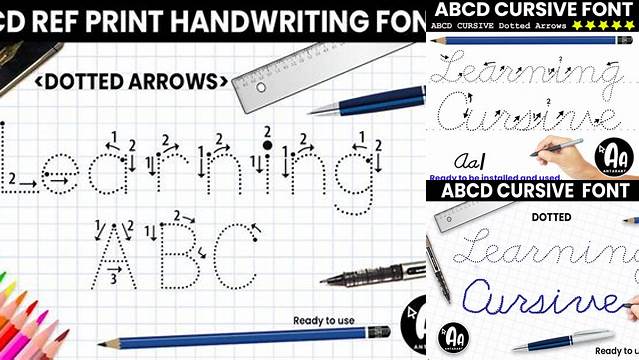
Let's dive into the world of fonts, guys! Today, we're talking about something super specific and cool: the abc cursive arrow dotted font. Finding the right font can seriously elevate your design game, whether you're working on invitations, logos, or just trying to make your social media posts pop. So, if you're on the hunt for this particular style and want to snag it for free, you've come to the right place. Let’s break down everything you need to know, from what makes this font unique to where you can download it without spending a dime. Trust me; by the end of this article, you'll be a pro at finding and using this awesome font!
What is ABC Cursive Arrow Dotted Font?
Okay, so first things first, what exactly is the abc cursive arrow dotted font? Well, it's a font characterized by its cursive script, often resembling handwriting, combined with unique dotted elements and arrow-like features. Imagine elegant, flowing letters with a playful twist – that’s pretty much it. This font style is perfect for projects where you want to convey a sense of creativity, whimsy, or even a touch of vintage charm. Think birthday invitations, custom greeting cards, or even adding a special touch to your blog headers. The combination of cursive, dots, and arrows gives it a distinct personality that sets it apart from more traditional fonts. Using this font can instantly make your designs feel more personalized and approachable, which is always a win in the design world. Plus, it’s just plain fun to work with, adding a bit of flair to anything you create. The abc cursive arrow dotted font is all about blending elegance with a playful edge, making it a versatile choice for various design projects. It’s the kind of font that catches the eye and leaves a lasting impression, making your work stand out from the crowd.
Why Use a Cursive Arrow Dotted Font?
So, why should you even bother using a cursive arrow dotted font in the first place? Great question! This font style brings a unique blend of elegance and playfulness to any project. Picture this: you're designing an invitation for a whimsical garden party. A standard, blocky font just won't cut it, right? But a cursive arrow dotted font? It's perfect! It adds a touch of sophistication with the cursive elements, while the dots and arrows inject a fun, quirky vibe. This makes it ideal for projects that need to be both stylish and approachable.
Beyond aesthetics, using such a distinctive font can also help your brand or design stand out. In a sea of generic fonts, the cursive arrow dotted font grabs attention and makes a statement. It’s excellent for logos, branding materials, and social media graphics where you want to leave a memorable impression. Plus, let's be honest, it’s just plain fun to use! Experimenting with different fonts can spark creativity and give your projects that extra oomph they need. Whether you're a professional designer or just dabbling in DIY projects, incorporating a cursive arrow dotted font can add a special touch that elevates your work to the next level. It’s all about making your designs unique and engaging, and this font is a fantastic way to achieve that.
Tips for Designing with Cursive Fonts
Designing with cursive fonts, like our abc cursive arrow dotted font, can be a blast, but it also comes with its own set of challenges. Here are some tips to help you make the most of this font style. First, readability is key. Cursive fonts can sometimes be harder to read than standard fonts, so make sure your text is clear and legible. Avoid using cursive fonts for large blocks of text; instead, reserve them for headings, titles, or short phrases. Contrast is also important. Choose colors that stand out against the background to make your text pop. Dark cursive fonts on a light background or vice versa usually work well. Experiment with different font sizes to find the sweet spot where your text is both readable and visually appealing.
Don't be afraid to mix and match fonts. Pairing a cursive font with a simple, sans-serif font can create a balanced and stylish look. Just make sure the fonts complement each other and don't clash. Finally, pay attention to the overall design. Make sure your font choice fits the mood and style of your project. A cursive arrow dotted font might be perfect for a whimsical invitation but not so much for a serious business report. With these tips in mind, you'll be able to create stunning designs with your cursive font.
Alright, let's talk about some common mistakes people make when using fonts, especially cursive ones like our abc cursive arrow dotted font. Avoiding these pitfalls can save you from design disasters and keep your projects looking polished. One of the biggest mistakes is overusing the font. Just because you love a particular font doesn't mean you should use it everywhere! Too much of a good thing can be overwhelming and make your design look cluttered. Stick to using your cursive arrow dotted font sparingly, perhaps for headings or accents, and balance it with simpler fonts for the body text. Another common mistake is ignoring readability. Cursive fonts can sometimes be difficult to read, especially at small sizes or when used in long paragraphs. Always prioritize readability over aesthetics. Make sure your text is clear and legible, even at a glance. Also, watch out for poor color choices. Using a font color that's too similar to the background can make your text disappear. Choose colors that provide enough contrast to make your text stand out.
Finally, don't forget to check your spelling and grammar! A beautiful font won't save you from typos and grammatical errors. Proofread your text carefully before finalizing your design. By avoiding these common mistakes, you'll be well on your way to creating professional-looking designs with your abc cursive arrow dotted font.
Pairing the Font with Other Styles
One of the coolest things about using fonts like the abc cursive arrow dotted font is how you can pair them with other styles to create unique and eye-catching designs. But let's be real, font pairing can feel like a daunting task. Don't worry, I've got your back! The key to successful font pairing is finding fonts that complement each other without clashing. Since the cursive arrow dotted font is already pretty decorative, it's best to pair it with a simpler, more neutral font. Think sans-serif fonts like Helvetica, Arial, or Open Sans. These fonts provide a clean and modern contrast to the cursive script, making your design look balanced and professional.
Another great option is to pair your cursive font with a serif font like Times New Roman or Georgia. Serif fonts have small decorative strokes at the end of each letter, which can add a touch of elegance and sophistication to your design. Just be careful not to choose a serif font that's too ornate, as it could compete with the cursive font and make your design look cluttered. When pairing fonts, pay attention to the font weight and size. Use different weights and sizes to create visual hierarchy and guide the viewer's eye through your design. For example, you could use the cursive arrow dotted font for a large heading and a smaller sans-serif font for the body text. With a little experimentation, you'll find the perfect font pairing for your project.
Inspiration: Designs Using Similar Fonts
Need a little spark of inspiration for how to use your abc cursive arrow dotted font? Let's take a peek at some designs that rock similar styles. Think about greeting cards with a personal touch – that's a perfect place for this kind of font to shine. Envision a birthday card with a fun, handwritten-style message in a dotted cursive font, paired with colorful illustrations. It's cheerful and inviting, right? Another great example is wedding invitations. Imagine the names of the happy couple elegantly displayed in a cursive font with delicate arrow details, setting a romantic and whimsical tone for the event. For branding, small businesses often use these fonts to create a friendly and approachable vibe.
Picture a bakery logo with a cursive arrow dotted font spelling out the name, maybe with a cute illustration of a cupcake or a rolling pin. It's memorable and conveys a sense of homemade goodness. Social media graphics are another fantastic canvas for these fonts. Think about eye-catching quotes or announcements with a playful cursive font, making your posts stand out in the endless scroll. Looking at these examples, you can see how versatile the abc cursive arrow dotted font can be. It's all about finding the right context and pairing it with complementary elements to create a design that truly shines. So go ahead, get inspired, and let your creativity flow!
Creating Logos with the Font
Let's talk logos, guys! Can you create a killer logo using the abc cursive arrow dotted font? Absolutely! But there are some things to keep in mind to make sure your logo is on point. First off, simplicity is key. Even though this font is eye-catching, you don't want your logo to be too cluttered. Think about using just a few letters or a short word in the font to represent your brand. This keeps it clean and memorable. Color is your friend! Play around with different color combinations to see what works best for your brand. A bold color can make the cursive font pop, while a more subtle color can create a sophisticated look. Consider adding a simple graphic or icon to complement the font. This could be anything from a small arrow or dot to a more complex illustration that represents your brand's values or products.
Make sure your logo is scalable. It should look just as good on a business card as it does on a billboard. Test it out at different sizes to make sure it remains legible and visually appealing. Get feedback! Show your logo to friends, colleagues, or potential customers and ask for their opinions. This can help you identify any areas that need improvement before you finalize your design. Creating a logo with the abc cursive arrow dotted font can be a fun and creative process. Just remember to keep it simple, scalable, and representative of your brand.
Using the Font in Social Media Graphics
If you're looking to make your social media graphics pop, the abc cursive arrow dotted font could be your new best friend! Social media is all about grabbing attention, and this font definitely has that wow factor. Think about using it for eye-catching quotes that you post on Instagram or Facebook. A well-designed quote with a playful cursive font can be super shareable and help you reach a wider audience. Create stunning headers for your social media profiles. A unique header with your brand name or a catchy slogan in the cursive arrow dotted font can make a lasting impression on visitors. Design engaging graphics for your stories. Use the font to highlight key information or add a fun, personal touch to your updates.
Run contests and promotions with eye-catching visuals. The abc cursive arrow dotted font can help you create graphics that stand out and encourage people to participate. Remember to keep your graphics consistent with your brand's overall aesthetic. Use the same colors, fonts, and style across all your social media platforms to create a cohesive and professional look. By incorporating the abc cursive arrow dotted font into your social media graphics, you can create visuals that are both engaging and memorable. So go ahead, experiment, and have fun!
Creating Invitations with the Font
Creating invitations is where the abc cursive arrow dotted font truly shines! Whether it's a birthday bash, a wedding, or just a fun get-together, this font can add a special touch that sets the tone for your event. Imagine designing birthday invitations with the birthday person's name elegantly written in the cursive font, surrounded by colorful dots and arrows. It's playful and festive, perfect for celebrating another year. For wedding invitations, consider using the font to highlight the names of the bride and groom or to write a romantic quote. Pair it with elegant paper and delicate floral designs to create a truly memorable invitation.
If you're hosting a casual get-together, use the font to create fun and inviting invitations that reflect the laid-back atmosphere of your event. Add some playful illustrations or quirky details to make your invitations even more unique. Remember to include all the important details, such as the date, time, location, and RSVP information. Make sure the text is clear and easy to read, even with the cursive font. Consider adding a personal touch, such as a handwritten note or a custom illustration, to make your invitations even more special. Creating invitations with the abc cursive arrow dotted font is a great way to add a personal and creative touch to your event. So go ahead, get creative, and let your invitations reflect your unique style!
Making Greeting Cards with the Font
Making greeting cards is a heartfelt way to connect with loved ones, and using the abc cursive arrow dotted font can add an extra layer of warmth and personality to your creations. Think about designing birthday cards with a cheerful message written in the cursive font, adorned with colorful dots and playful arrows. It's a delightful way to wish someone a happy birthday. For thank-you cards, consider using the font to express your gratitude in a sincere and stylish way. A handwritten note in the cursive font can make your thank-you card even more meaningful.
Create holiday cards with a festive message written in the abc cursive arrow dotted font, surrounded by seasonal illustrations and decorations. It's a wonderful way to spread holiday cheer. Remember to personalize your greeting cards with a special message or a thoughtful detail that shows you care. Add some embellishments, such as glitter, ribbon, or stickers, to make your greeting cards even more unique and eye-catching. Consider using different colors and paper textures to create a variety of greeting cards for different occasions. Making greeting cards with the abc cursive arrow dotted font is a fun and creative way to express your feelings and connect with the people you care about.
Creating Digital Art with the Font
Unleash your inner artist and create stunning digital art using the abc cursive arrow dotted font! This font is perfect for adding a touch of whimsy and personality to your digital creations. Design eye-catching posters with inspirational quotes written in the cursive font, surrounded by vibrant colors and abstract shapes. It's a great way to motivate and inspire others. Create unique typography art by arranging the letters of the font in creative and unexpected ways. Experiment with different sizes, colors, and orientations to create a visually stunning composition. Design custom digital illustrations with the abc cursive arrow dotted font as a key element. Use the font to add text, labels, or captions to your illustrations and make them even more engaging.
Create digital collages with a mix of photos, illustrations, and typography. Use the abc cursive arrow dotted font to add headlines, captions, or decorative elements to your collages. Remember to experiment with different styles and techniques to find what works best for you. Don't be afraid to try new things and push your creative boundaries. Share your digital art with the world and inspire others to create their own masterpieces. Creating digital art with the abc cursive arrow dotted font is a fun and rewarding way to express your creativity and connect with others.
Using the Font for DIY Projects
Get crafty and use the abc cursive arrow dotted font for your next DIY project! This font is perfect for adding a personal touch to your handmade creations. Create custom labels for your jars, bottles, and containers. Use the font to write the names of the contents and make your pantry or craft room more organized and stylish. Design personalized gifts for your friends and family. Use the font to write their names or a special message on mugs, t-shirts, or tote bags. Decorate your home with handmade signs and wall art. Use the abc cursive arrow dotted font to write inspirational quotes or family names on wooden plaques or canvas.
Create custom stationery, such as notepads, envelopes, and greeting cards. Use the font to add your name, address, or a decorative design to your stationery. Remember to have fun and let your creativity shine. Don't be afraid to experiment with different materials and techniques. Share your DIY projects with the world and inspire others to get crafty. Using the abc cursive arrow dotted font for DIY projects is a great way to add a personal and creative touch to your handmade creations.
The History of Cursive Fonts
The flowing, elegant strokes of cursive fonts have a rich and fascinating history, evolving over centuries from ancient writing styles to the digital fonts we use today, like our abc cursive arrow dotted font. Cursive writing, at its core, is about efficiency and speed. Imagine early scribes painstakingly forming each letter – not exactly a quick process! Cursive emerged as a way to connect letters, reducing the number of times the pen needed to be lifted from the page. This made writing faster and smoother, particularly important for lengthy documents. The Romans were early adopters, developing forms of cursive for everyday writing. As writing spread across Europe, different styles of cursive evolved in different regions, influenced by local languages and cultural practices.
During the Renaissance, humanist scholars rediscovered classical Roman texts and developed new, more elegant cursive styles. These styles became popular among the educated elite and were used for everything from personal letters to official documents. The invention of printing in the 15th century initially led to a decline in the use of cursive, as printed books became more common. However, cursive remained important for handwriting and personal correspondence. In the 18th and 19th centuries, handwriting schools emerged, teaching standardized cursive styles to children. These styles, often emphasizing uniformity and legibility, became the dominant form of handwriting in many Western countries. Today, while digital communication has reduced the need for handwriting, cursive fonts like the abc cursive arrow dotted font continue to be popular in design, adding a touch of elegance and personality to a wide range of projects.
The Psychology of Font Choice
Did you know that your choice of font, like the abc cursive arrow dotted font, can actually influence how people perceive your message? It's true! Fonts have a subtle but powerful psychological impact, conveying different emotions and associations. Think about it: a serious, formal document in Comic Sans? Definitely not the right vibe! Different font styles evoke different feelings. Serif fonts, like Times New Roman, often convey a sense of tradition, authority, and trustworthiness. They're a good choice for legal documents, academic papers, or anything where you want to project a sense of seriousness. Sans-serif fonts, like Helvetica, tend to feel more modern, clean, and minimalist. They're often used in website design, logos, and other contemporary applications.
Cursive fonts, like the abc cursive arrow dotted font, add a touch of personality, warmth, and creativity. They're great for invitations, greeting cards, or anything where you want to create a personal connection. Decorative fonts, like those with unusual shapes or embellishments, can be eye-catching and attention-grabbing. However, they should be used sparingly, as they can also be distracting or difficult to read. When choosing a font, consider your target audience and the message you want to convey. What emotions do you want to evoke? What associations do you want to create? By carefully considering the psychology of font choice, you can create designs that are both visually appealing and emotionally resonant.
Future Trends in Font Design
The world of font design is constantly evolving, with new styles and trends emerging all the time. So, what can we expect to see in the future of fonts, including styles similar to our abc cursive arrow dotted font? One major trend is the increasing use of variable fonts. Variable fonts allow designers to adjust various aspects of a font, such as weight, width, and slant, using sliders or other controls. This gives them much greater flexibility and control over typography. Another trend is the rise of more expressive and个性化fonts. Designers are creating fonts that are more unique,个性化, and reflective of individual styles and personalities. We're also seeing a growing interest in retro and vintage-inspired fonts. These fonts evoke a sense of nostalgia and can add a unique charm to designs.
In the future, we can expect to see even more innovative and experimental font designs, pushing the boundaries of what's possible with typography. Designers are exploring new technologies, such as artificial intelligence and virtual reality, to create fonts that are more interactive and immersive. We're also seeing a greater emphasis on accessibility in font design. Designers are creating fonts that are easier to read for people with visual impairments or other disabilities. The future of font design is exciting and full of possibilities. As technology continues to evolve, we can expect to see even more creative and innovative font styles emerge, enriching our visual landscape.
Resources for Learning More About Typography
Want to dive deeper into the world of typography and master the art of font selection and design? There are tons of amazing resources available to help you learn more! Online courses are a great way to get a structured introduction to typography. Platforms like Coursera, Skillshare, and Udemy offer courses taught by experienced designers and typographers. Books are another fantastic resource for learning about typography. Some classic titles include "The Elements of Typographic Style" by Robert Bringhurst and "Thinking with Type" by Ellen Lupton. Websites and blogs dedicated to typography are also a great way to stay up-to-date on the latest trends and techniques. Sites like Typewolf, I Love Typography, and Fonts in Use offer insightful articles, reviews, and inspiration.
Workshops and conferences are a great way to learn from experts and network with other designers. Look for events in your area or consider attending a larger conference like ATypI. Don't forget to experiment and practice! The best way to learn about typography is to get hands-on and start designing with different fonts. Try creating your own layouts, experimenting with different font pairings, and analyzing the typography in your favorite designs. With a little effort and dedication, you can become a typography pro and create stunning visual designs. So go forth, explore these resources, and unleash your inner typographer!
Advanced Techniques for Using Fonts
Ready to take your font game to the next level? Let's explore some advanced techniques for using fonts, including our beloved abc cursive arrow dotted font, to create truly stunning designs. One technique is kerning, which involves adjusting the spacing between individual letters to improve readability and visual appeal. Many design programs have automatic kerning features, but it's often necessary to manually adjust the kerning to achieve the best results. Another technique is leading, which refers to the vertical spacing between lines of text. Adjusting the leading can improve readability and create a more visually balanced layout.
Tracking involves adjusting the overall spacing between all the letters in a word or line of text. This can be useful for creating emphasis or improving the readability of small text. Hierarchy is a key principle of typography, which involves using different font sizes, weights, and styles to create a visual hierarchy and guide the viewer's eye through the design. Color is another powerful tool for enhancing typography. Experiment with different color combinations to create contrast, emphasis, and visual interest. By mastering these advanced techniques, you can create truly professional and visually stunning designs with your fonts.
Even with the best fonts and design skills, you might occasionally run into some technical issues. Let's troubleshoot some common font problems and get you back on track. First, if your font isn't showing up in your design program, make sure it's properly installed on your system. Try restarting your computer or the design program to refresh the font list. If your font looks pixelated or blurry, it might be a low-resolution font file. Try downloading a higher-resolution version of the font or using a vector-based design program. If your font is displaying incorrectly, it might be a font encoding issue. Try changing the font encoding settings in your design program or using a different font format.
If you're having trouble with font licensing, make sure you have the appropriate license for the intended use. Contact the font designer or foundry for clarification if needed. If you're still having trouble, consult the documentation for your design program or search for online forums and communities for assistance. Don't be afraid to ask for help! The design community is generally very supportive and willing to share their knowledge and expertise. With a little troubleshooting, you can overcome most font issues and create beautiful designs with your favorite fonts.
Font File Formats Explained
Ever wondered about those mysterious file extensions like .ttf, .otf, and .woff? Let's break down the different font file formats and understand their strengths and weaknesses. TrueType Fonts (TTF) are one of the oldest and most widely supported font formats. They're compatible with most operating systems and design programs, making them a safe choice for general use. OpenType Fonts (OTF) are a more advanced font format that offers a wider range of features and capabilities. They can contain more glyphs, ligatures, and alternate characters than TTF fonts, giving designers greater flexibility and control over typography.
Web Open Font Format (WOFF) is a font format specifically designed for use on the web. It's compressed to reduce file size, making it faster to download and display on websites. Scalable Vector Graphics (SVG) fonts are fonts that are created using vector graphics. This means they can be scaled to any size without losing quality, making them ideal for responsive web design. When choosing a font file format, consider the intended use and the compatibility requirements. TTF fonts are a good choice for general use, while OTF fonts offer more advanced features. WOFF fonts are ideal for websites, and SVG fonts are great for responsive designs. Understanding the different font file formats can help you choose the best options for your projects and ensure that your fonts display correctly across different platforms.
Where to Get Inspiration for Font Pairings
Stuck in a font-pairing rut? Don't worry, inspiration is all around you! Let's explore some great sources for finding font-pairing ideas and sparking your creativity. Look at the typography in your favorite websites, magazines, and books. Pay attention to the font combinations they use and analyze why they work so well together. Check out online design galleries and showcases for inspiration. Sites like Behance, Dribbble, and Awwwards feature stunning designs that often highlight creative font pairings. Follow typography-focused accounts on social media platforms like Instagram, Pinterest, and Twitter. These accounts often share font-pairing ideas, design tips, and typographic inspiration.
Use online font-pairing tools and resources. Sites like FontPair, Canva Font Combinations, and Typ.io offer tools and suggestions for finding harmonious font pairings. Attend design conferences and workshops to learn from experts and see examples of successful font pairings. Don't be afraid to experiment and try new things! The best way to find font pairings that work for you is to get hands-on and start designing with different fonts. With a little observation, experimentation, and creativity, you can discover countless font-pairing possibilities and create visually stunning designs. Remember, the abc cursive arrow dotted font can be paired with many fonts!
Best Practices for Font Management
Keeping your font collection organized and well-managed is essential for efficient and productive design work. Here are some best practices for font management to help you stay on top of things. Use a font management tool to organize your fonts into categories, tag them with keywords, and preview them easily. Popular font management tools include FontBase, NexusFont, and RightFont. Create a consistent naming convention for your font files to make them easier to find and identify. Use descriptive names that include the font name, style, and version. Store your font files in a centralized location, such as a dedicated folder on your hard drive or a cloud storage service. This will make it easier to back up your fonts and access them from different devices.
Back up your font collection regularly to protect against data loss. Use a cloud storage service or an external hard drive to create a backup copy of your font files. Avoid installing too many fonts on your system, as this can slow down your computer and make it harder to find the fonts you need. Only install the fonts you use regularly and uninstall the ones you don't need. Keep your font software up to date to ensure compatibility and security. Install the latest updates for your font management tool and your operating system. By following these best practices for font management, you can keep your font collection organized, accessible, and protected.